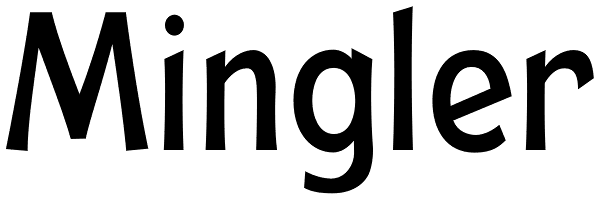
Mingler
The Mingler fonts have a great big smile and a crisp clear voice. They were originally created as a branding font for a restaurant chain to use in coupons, print ads and tv commercials. More recently this font is picking up popularity as a...